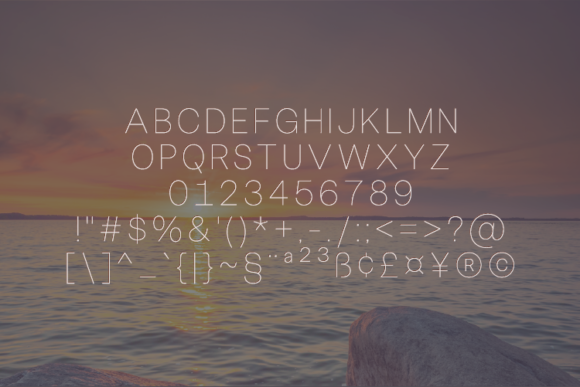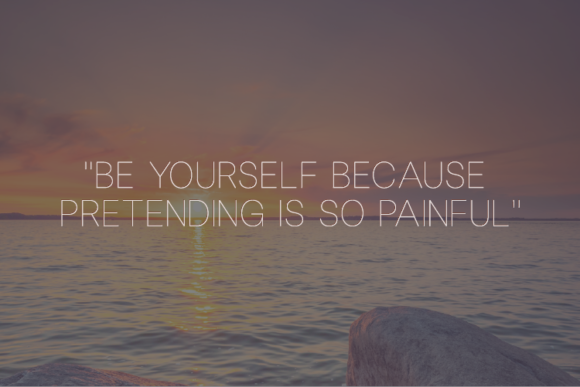
Introduction to Osheo Font
Have you ever stared at a blank canvas, unsure of where to begin your next creative project? You’ve got a vision, but the right font is missing. That’s where the Osheo Font comes in – a sleek and modern sans-serif font that can elevate your design to the next level. With its effortless round lettering and thin lines, Osheo Font is the perfect design resource to bring your ideas to life.
Whether you’re working on a logo, brochure, or website, Osheo Font is a high-quality addition to your design arsenal. And the best part? It’s free to download, making it an accessible resource for designers of all levels. Plus, its transparent background allows for seamless integration into any design project, ensuring that your creative vision shines through.
Key Features of Osheo Font
- Transparent background, allowing for seamless integration with other design elements.
- Includes a range of font styles and sizes, making it a versatile design resource.
- Designed to be easily readable and aesthetically pleasing, making it perfect for creative projects.
- Perfect for use in graphic design, digital art, and other design-related projects, as a valuable design resource.
Honest Review: Osheo Font
I recently stumbled upon the Osheo Font, and I must say it’s been a game-changer for my design projects. This high-quality font is perfect for any creative project that requires a modern and sleek aesthetic.
- ✨ Beautifully designed, with a unique blend of elegance and sophistication.
- ✨ Highly versatile, suitable for a wide range of design applications, from logos to brochures.
- ✨ Features a transparent background, allowing for seamless integration with various design elements.
- ⚠️ Limited character set, which may not be suitable for projects that require extensive text.
- ⚠️ Not suitable for use in very small sizes, as the font may become difficult to read.
Overall, I’m thoroughly impressed with the Osheo Font. Its high quality and versatility make it an excellent addition to any designer’s toolkit. While it may have some limitations, I believe it’s a valuable resource for any creative project.
For optimal results, use the Osheo Font on a transparent background to create visually appealing designs. Experiment with different font sizes and combinations to achieve the desired effect.
The Osheo Font is ideal for various creative projects, including:
- Business presentations
- Graphic novels
Compared to Osheo Font, Alex Brush Font has a more delicate and feminine look, making it suitable for creative projects that require a touch of whimsy. It lacks the bold, playful feel of Osheo Font, but its unique handwriting style makes it a great alternative for designers seeking a one-of-a-kind look.
The Pacifico Font is a beautiful, elegant serif font perfect for creative projects that require a touch of sophistication. It’s ideal for designing branding materials, business cards, and other visual content where a refined look is essential. Pacifico Font is a free download and can be used with a transparent background, making it a versatile design resource.
Can I customize the Osheo Font to fit my design needs?
While the Osheo Font is a high-quality design resource, it’s not intended for extensive customization. However, you can experiment with different font sizes, colors, and styles to create unique variations that suit your design project. For more advanced customizations, consider using a font editor or working with a professional designer.